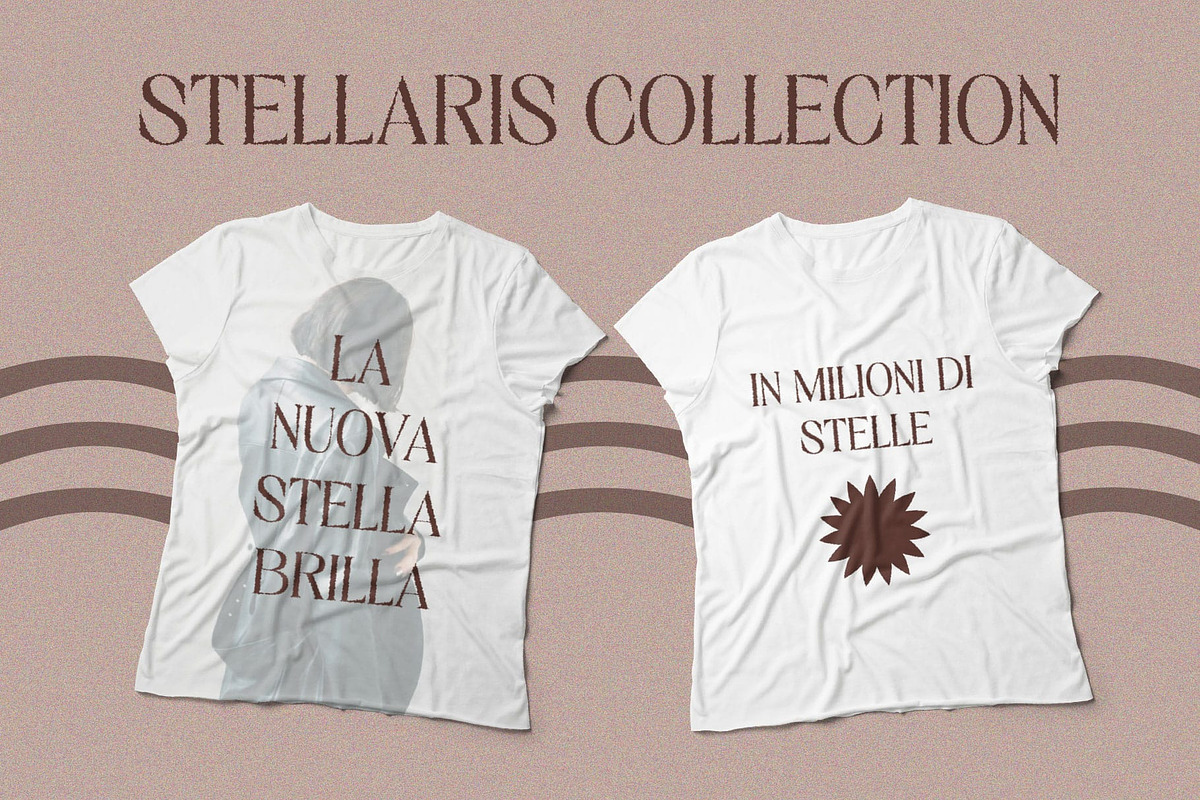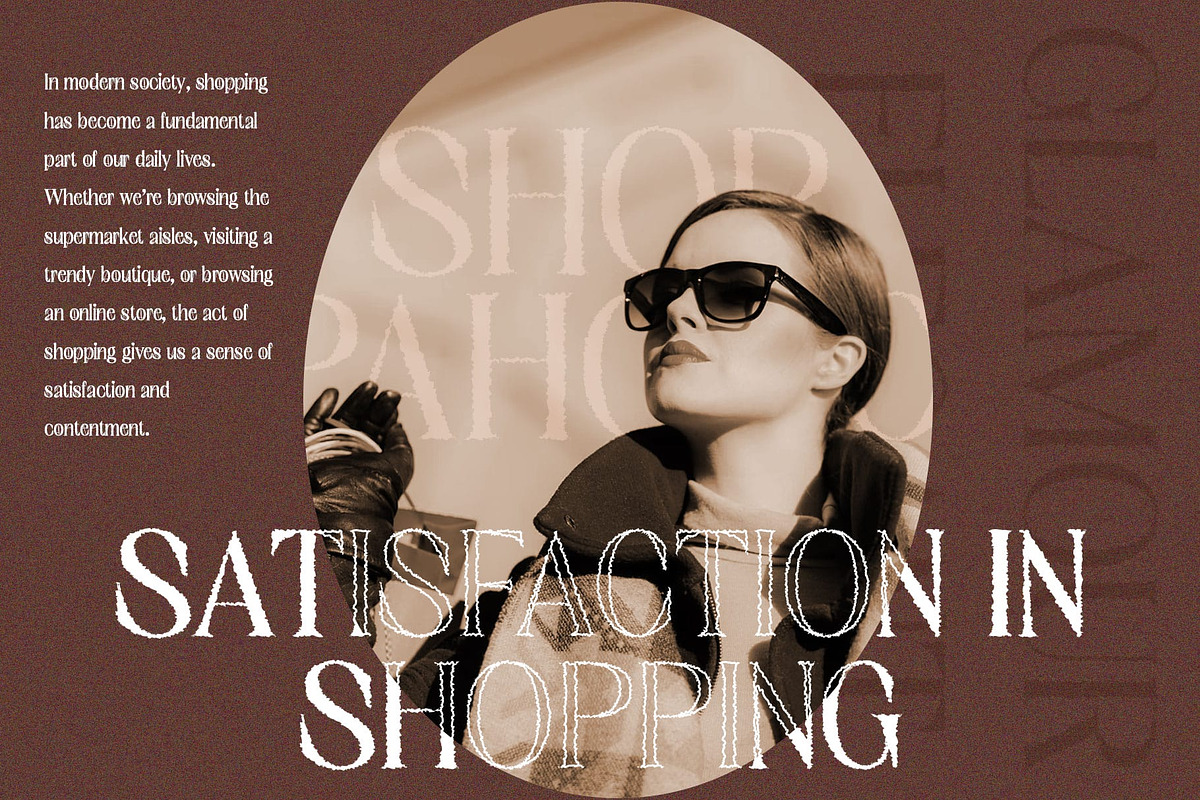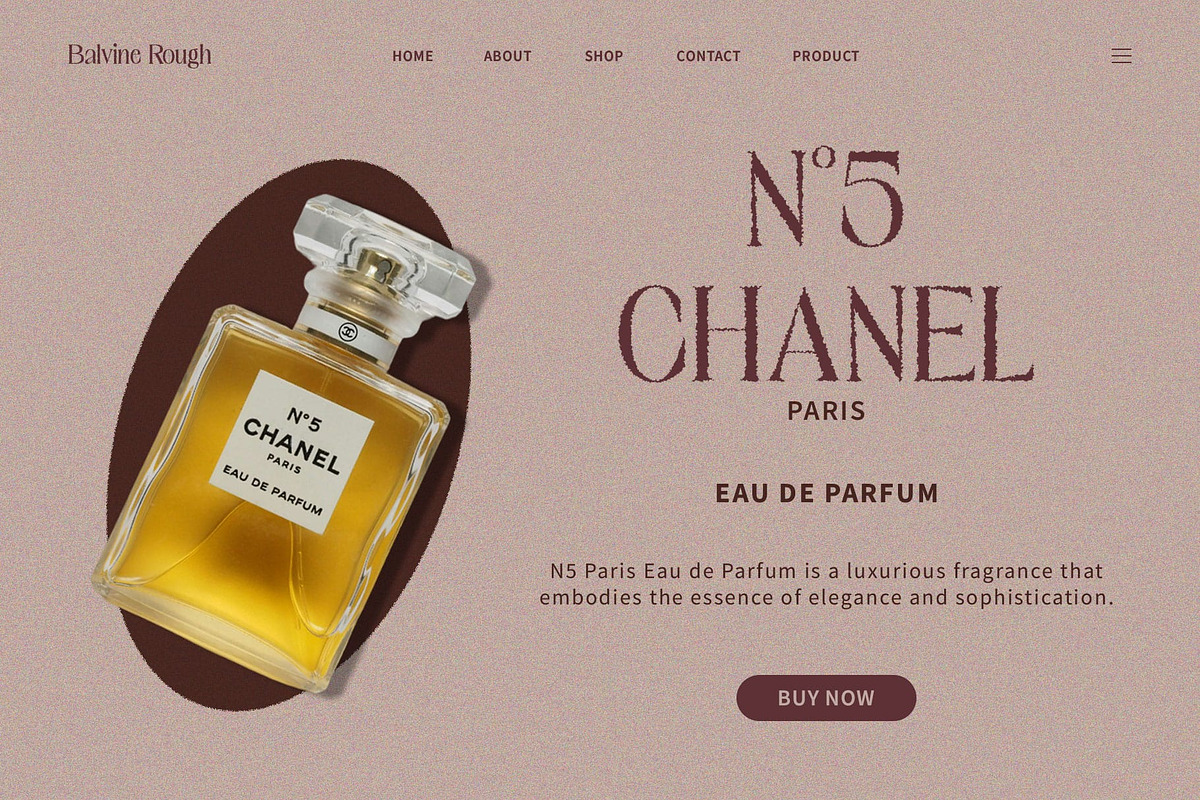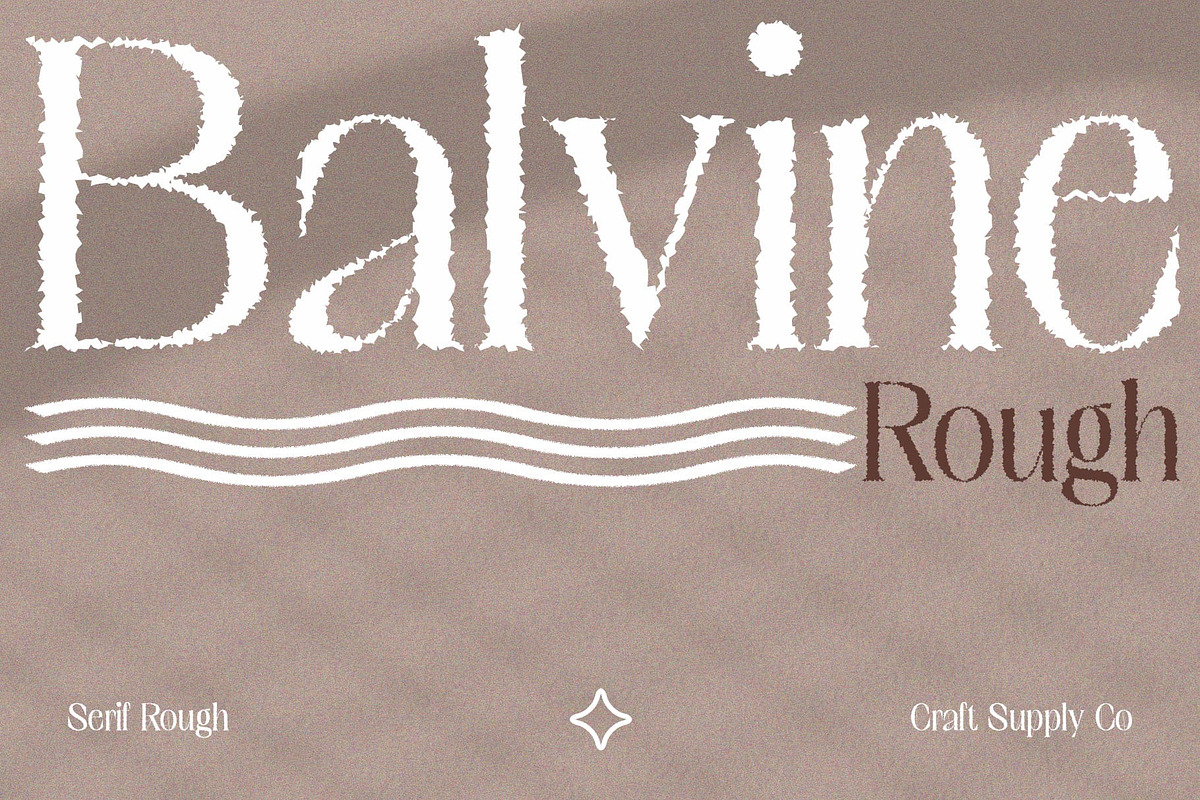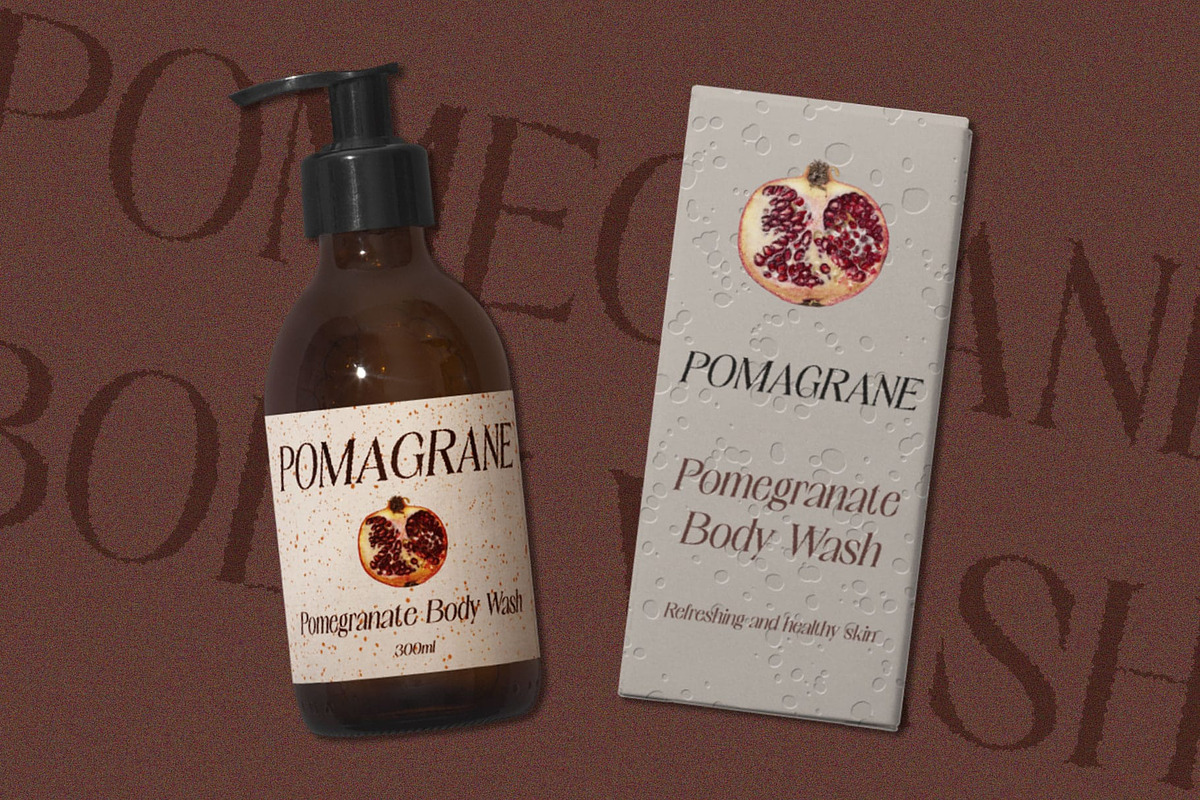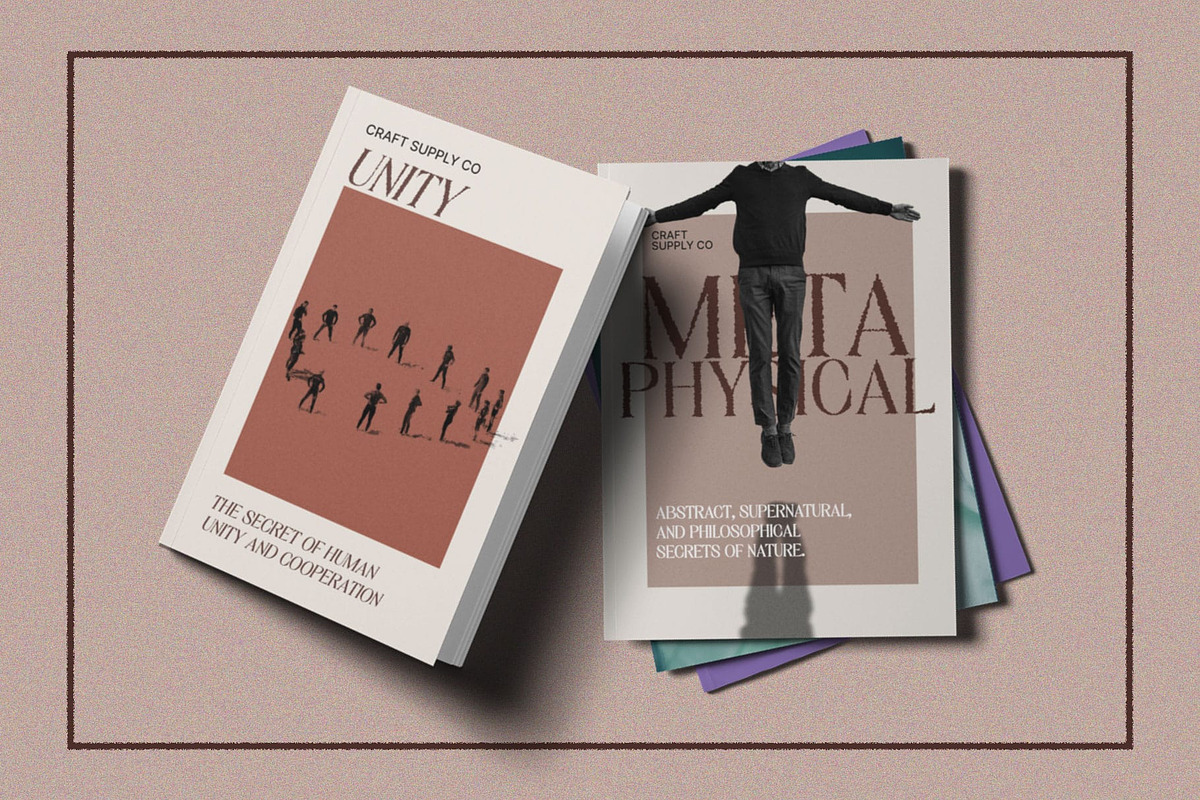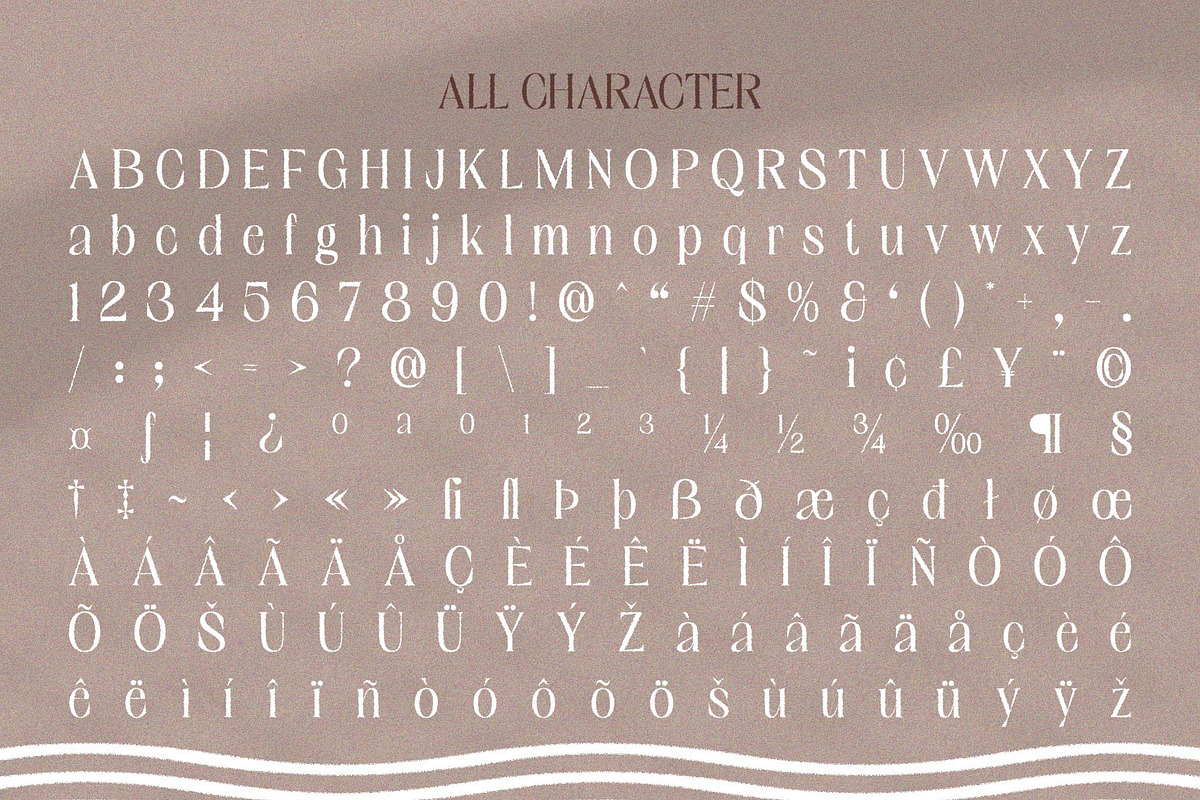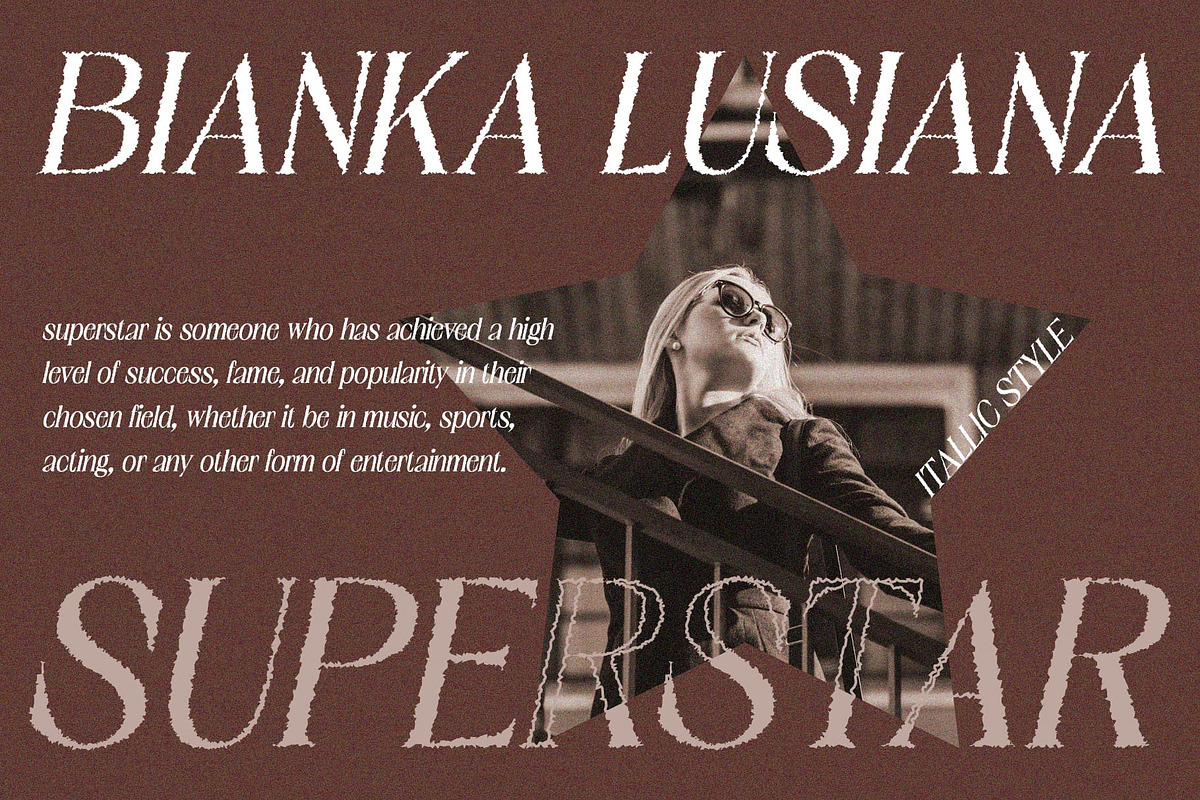
Balvine Rough
Balvine Rough: Striking Display Typography
High Contrast Serif Design Balvine Rough features a high contrast serif design that captivates the eye with its bold strokes and elegant flourishes.
Rough Texture Effect The font is enhanced with a rough texture effect, lending it a raw and authentic appearance that adds character to any display project.
Perfect for Display Purposes With its high contrast serif design and rough texture effect, This font is perfectly suited for display purposes. It demands attention and creates a strong visual impact in headlines, titles, and other prominent elements.
Versatile Application Despite its bold appearance, This font offers versatility in its application. Whether used for branding, packaging, posters, or invitations, it adds a touch of sophistication and personality to any design project.
Bold Elegance with a Rough Edge This font combines bold elegance with a rugged edge, making it an ideal choice for designers looking to make a statement. Its striking design and versatile application options ensure impactful results in various display projects.